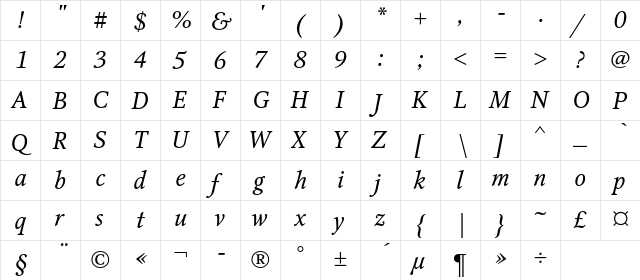
OctavaC Italic
Design Context for OctavaC Typeface
OctavaC is a composed and adaptable typeface that performs quietly and consistently across a wide range of design contexts. Its italic angle brings a sense of urgency and motion to the letterforms.
Pro Tip: Use OctavaC for emphasis, pull quotes, and subheadings where its slanted energy can add rhythm to the layout.